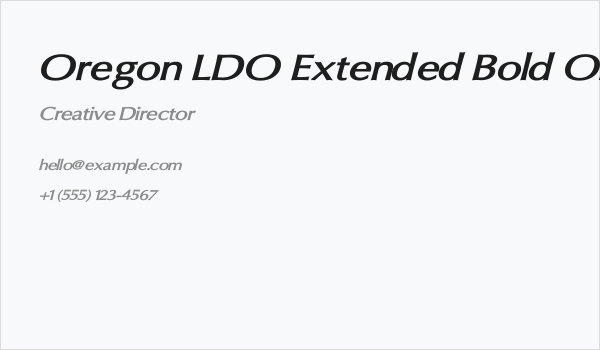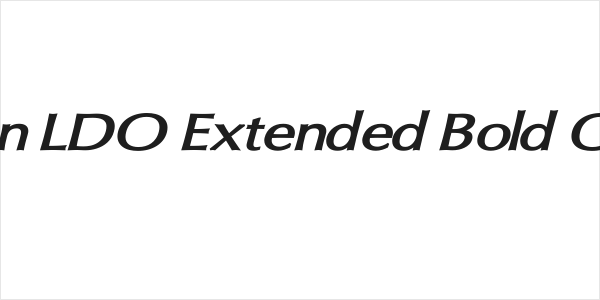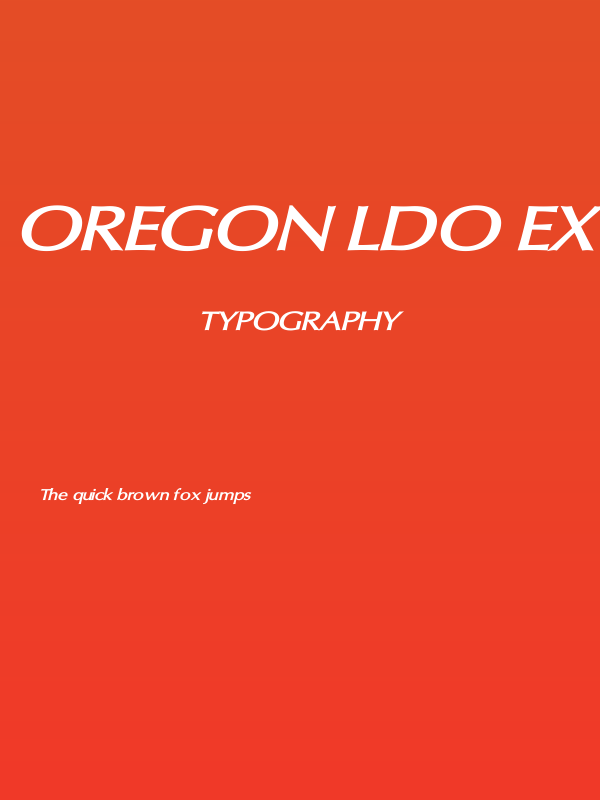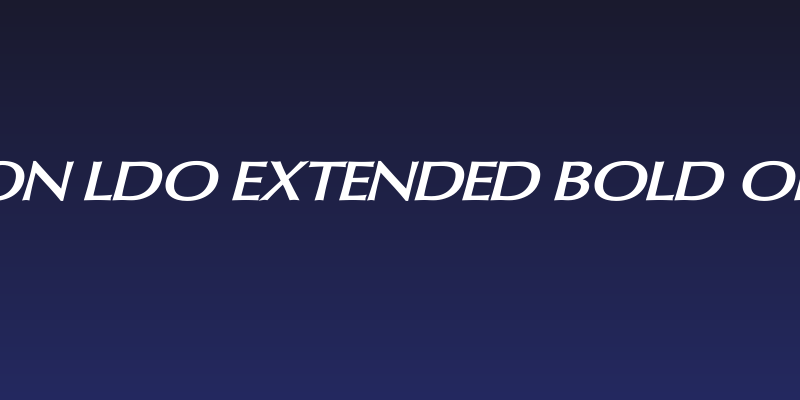
Oregon LDO Extended Bold Oblique Font
This font exhibits a bold and oblique style, characterized by its extended width and dynamic slant. The uppercase letters are tall and commanding, while the lowercase letters maintain a consistent flow, enhancing readability. The numerals are clear and distinct, complementing the overall boldness of the typeface. Special characters are well-integrated, maintaining the font's cohesive appearance. The strokes are thick, providing a strong visual impact, and the italic nature adds a sense of motion and modernity.
Use CaseHeadlines, Logos, Advertising
Proposed ProjectsIdeal for branding projects, headlines, and advertising where a strong, modern impression is desired.